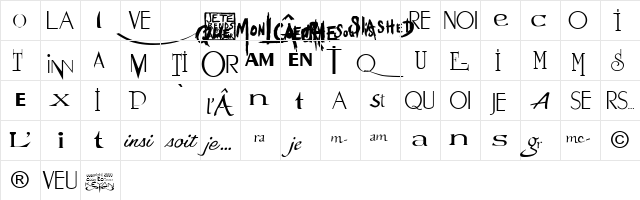
Logos Myl讥 Farmer Regular
Design Context for Logos Myl讥 Farmer Typeface
Logos Myl讥 Farmer is a composed and adaptable typeface that performs quietly and consistently across a wide range of design contexts.
Pro Tip: Use Logos Myl讥 Farmer in both headline and body roles to test its range before committing to a single application.